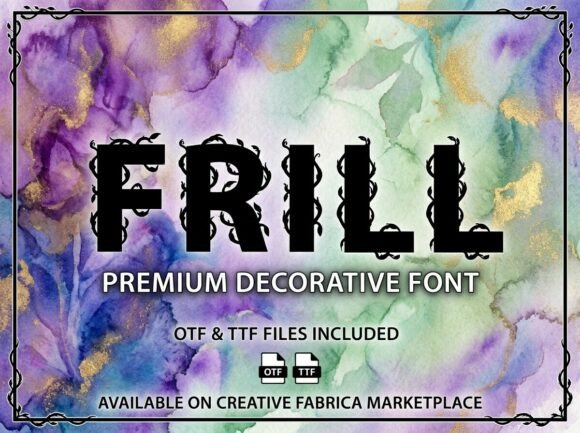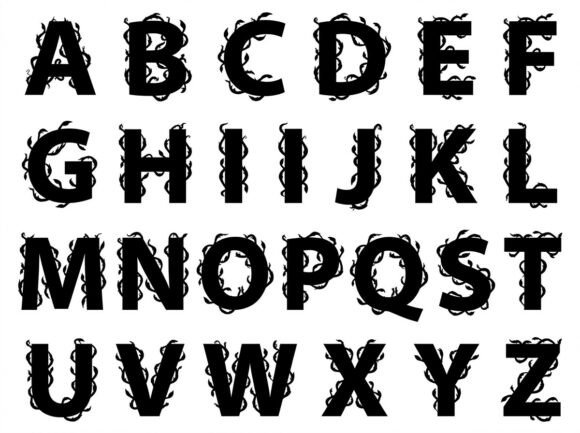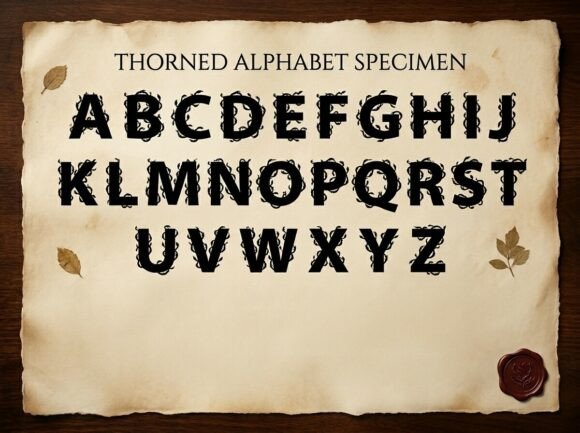
Introducing Frill Font: The Ultimate Decorative Display Font for Creators
Are you tired of using the same old fonts for your designs? Do you want to make a statement and stand out from the crowd? Look no further than Frill Font, a stunning decorative display font that’s designed to be the center of attention. With its unique artistic elements and strong visual personality, this font is perfect for creators who want to break away from the ordinary and add a touch of elegance to their work.
What Makes Frill Font So Special?
Frill Font is a versatile decorative display font that’s specifically designed for high-impact headlines, logos, and decorative initials. This font features a unique and artistic design that’s sure to grab attention and leave a lasting impression. Whether you’re a designer, crafty DIY enthusiast, or entrepreneur, Frill Font is the perfect choice for anyone looking to add a touch of sophistication and style to their work.
Key Features of Frill Font
- Unique Artistic Elements: Frill Font features unique artistic elements that set it apart from other fonts. Each letter is carefully crafted to make a statement and add a touch of elegance to your designs.
- Strong Visual Personality: This font has a strong visual personality that’s sure to grab attention and leave a lasting impression. Whether you’re using it for a headline, logo, or packaging, Frill Font is sure to make your design stand out.
- Versatile: Frill Font is versatile enough for bold headlines, artistic logos, and creative packaging, while maintaining a professional and polished finish.
- ALL-CAPS (Uppercase Only): This font is specifically designed for high-impact headlines, logos, and decorative initials where every letter is a work of art. It’s an ALL-CAPS (Uppercase Only) display typeface, which means it doesn’t include lowercase letters.
Before you purchase Frill Font, please note that it’s an ALL-CAPS (Uppercase Only) display typeface. It does not include lowercase letters. This font is specifically designed for high-impact headlines, logos, and decorative initials where every letter is a work of art.
Why Choose Frill Font?
There are many reasons why you should choose Frill Font for your next design project. Here are just a few:
- Add a Touch of Elegance: Frill Font adds a touch of elegance and sophistication to any design. Whether you’re creating a logo, packaging, or headline, this font is sure to make your design stand out.
- Stand Out from the Crowd: With its unique artistic elements and strong visual personality, Frill Font is sure to help you stand out from the crowd and make a lasting impression.
- Perfect for Designers and Crafters: Frill Font is perfect for designers, crafty DIY enthusiasts, and entrepreneurs who want to add a touch of style and sophistication to their work.
- Use it for Headlines and Logos: Frill Font is perfect for headlines and logos. Use it to create bold and eye-catching headlines that grab attention and leave a lasting impression.
- Experiment with Different Sizes and Colors: Don’t be afraid to experiment with different sizes and colors. Frill Font looks great in a variety of sizes and colors, so don’t be afraid to try something new.
- Pair it with Other Fonts: Frill Font pairs well with other fonts. Try pairing it with a clean and simple font to create a bold and eye-catching design.
| Font Name | Frill Font |
In conclusion, Frill Font is a stunning decorative display font that’s perfect for creators who want to break away from the ordinary and add a touch of elegance to their work. With its unique artistic elements and strong visual personality, this font is sure to grab attention and leave a lasting impression. Whether you’re a designer, crafty DIY enthusiast, or entrepreneur, Frill Font is the perfect choice for anyone looking to add a touch of style and sophistication to their work.